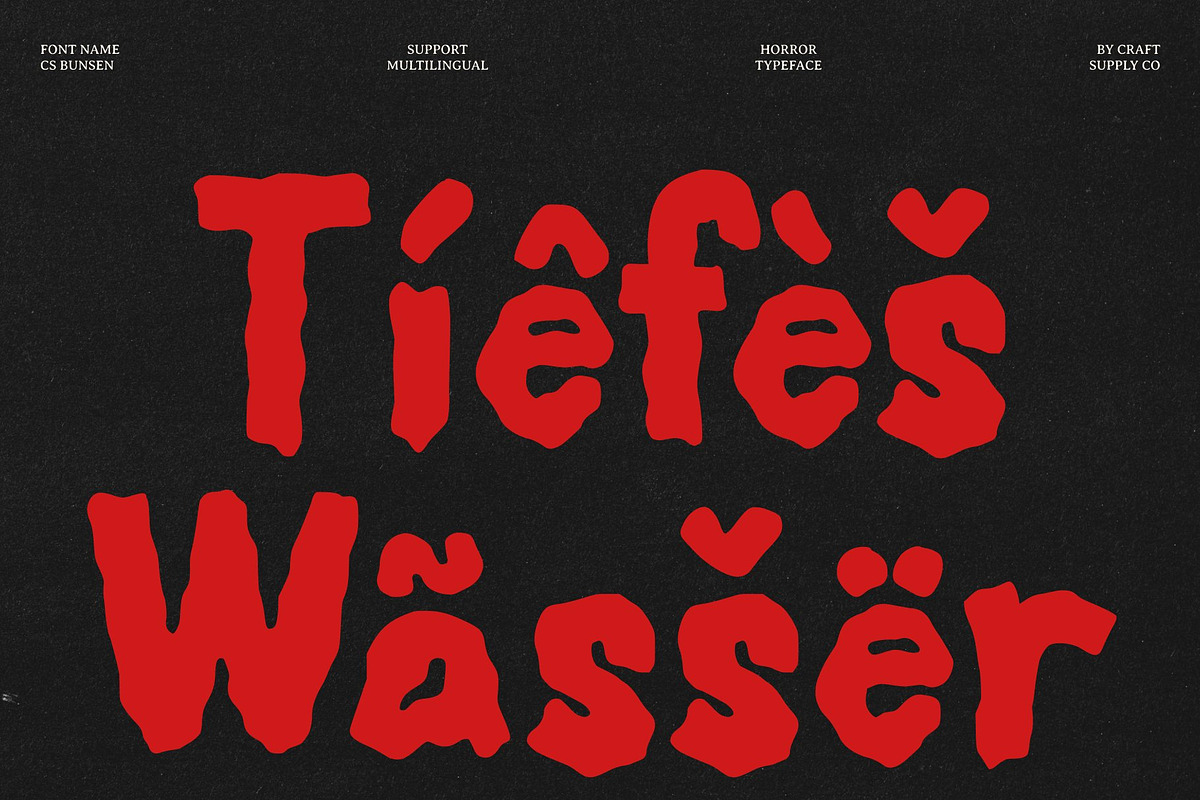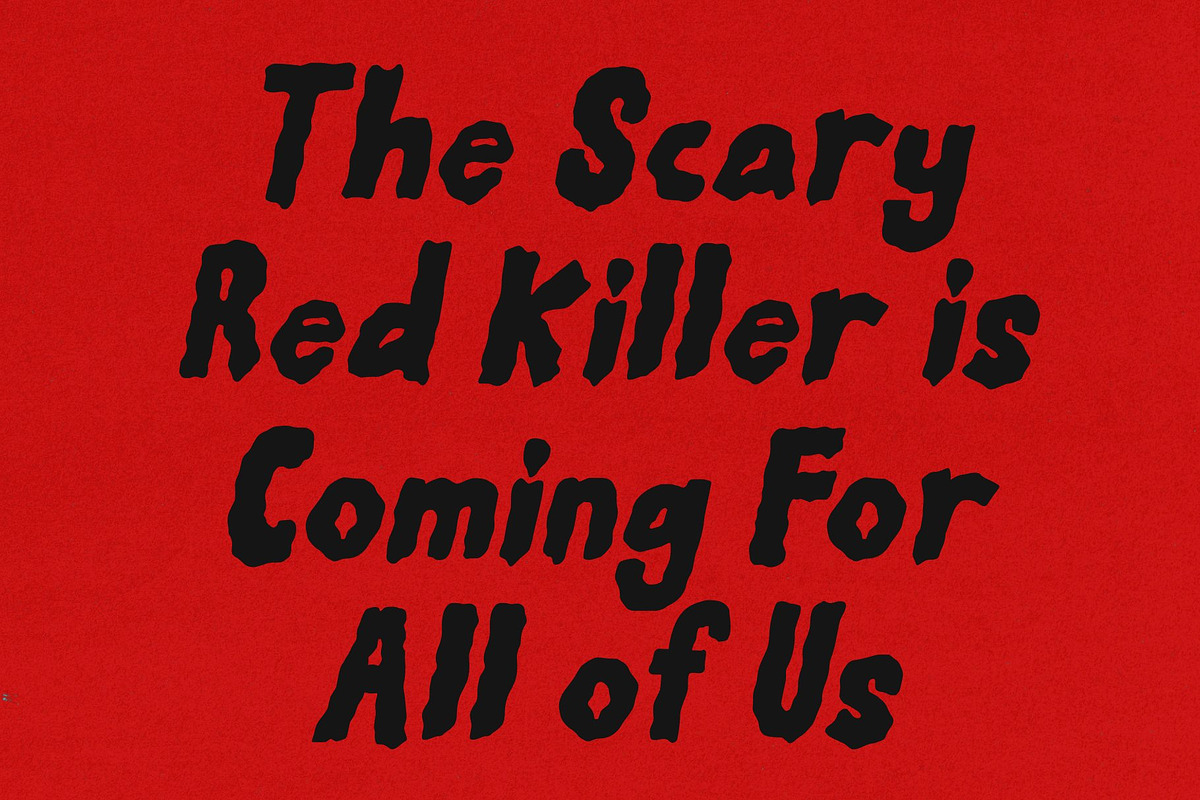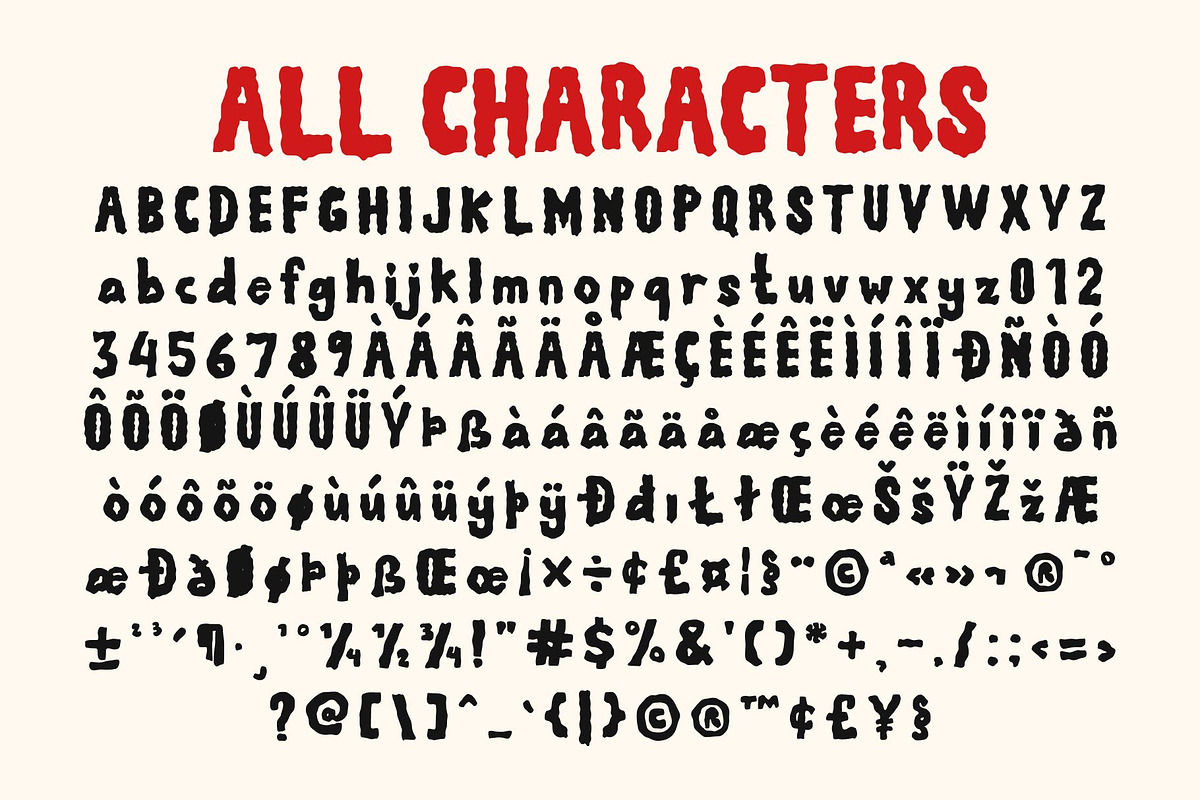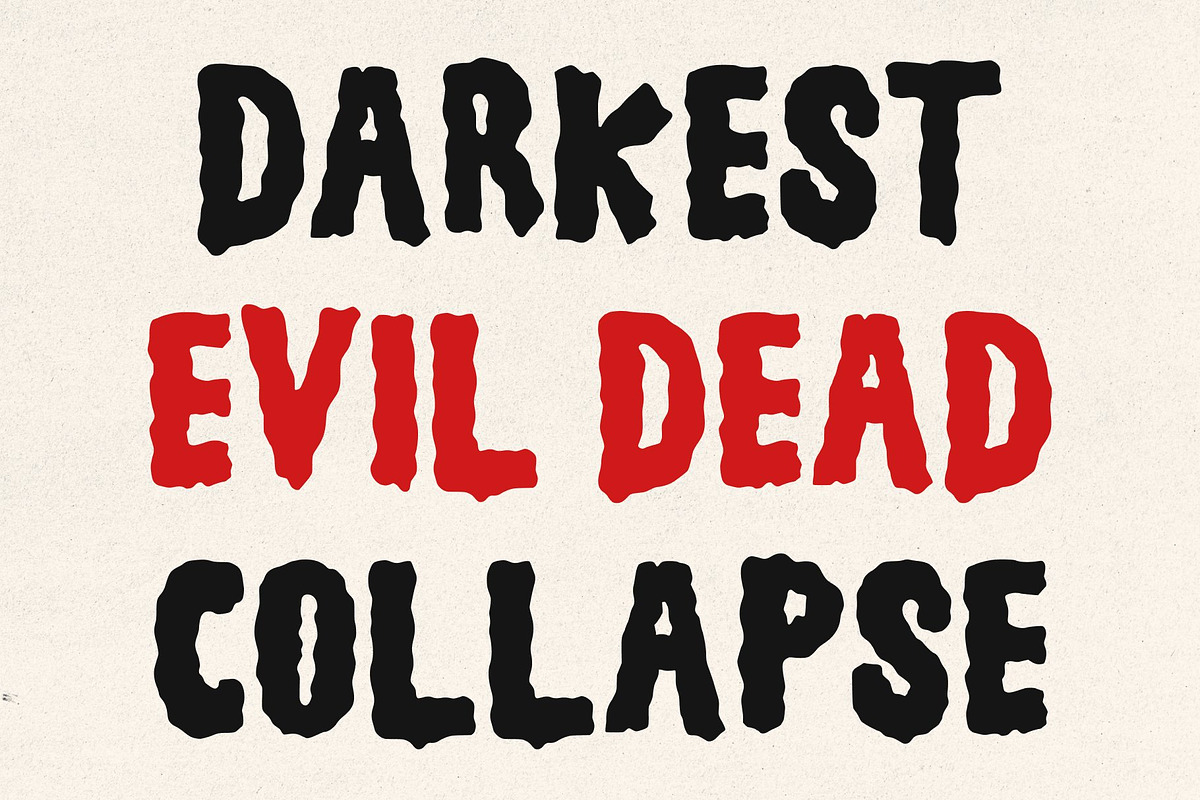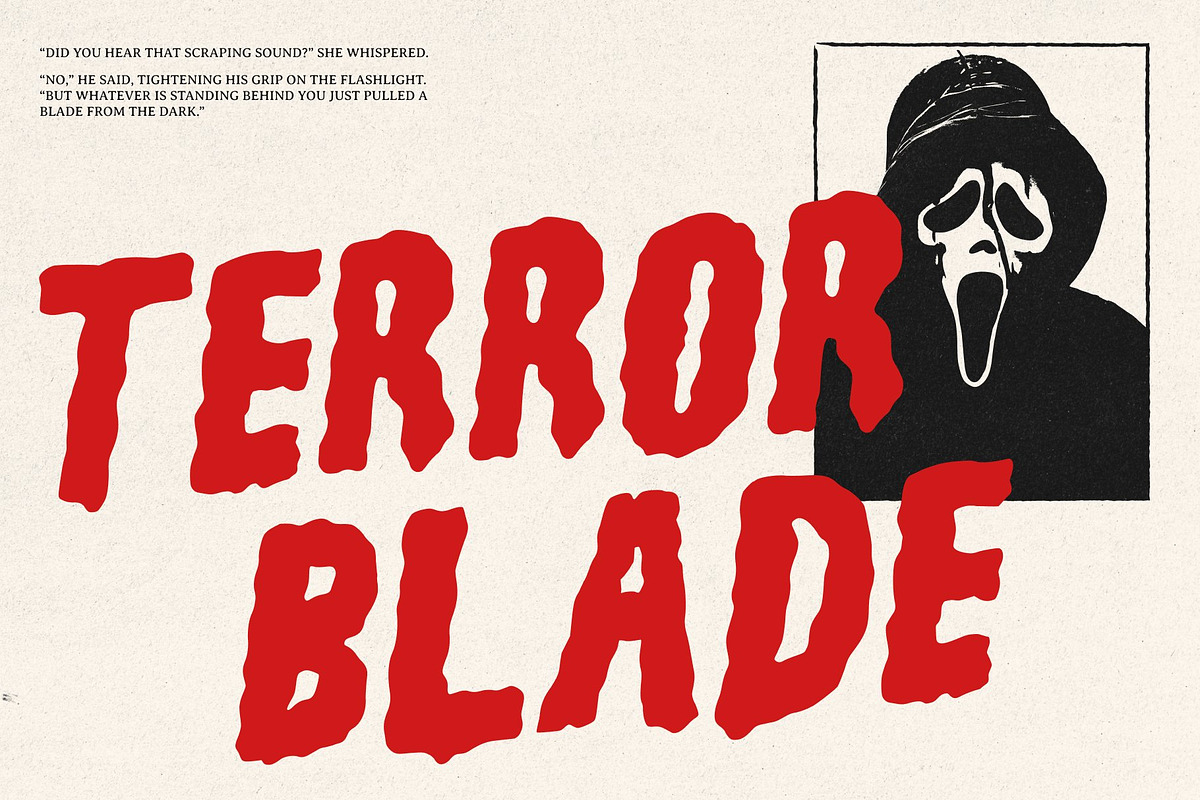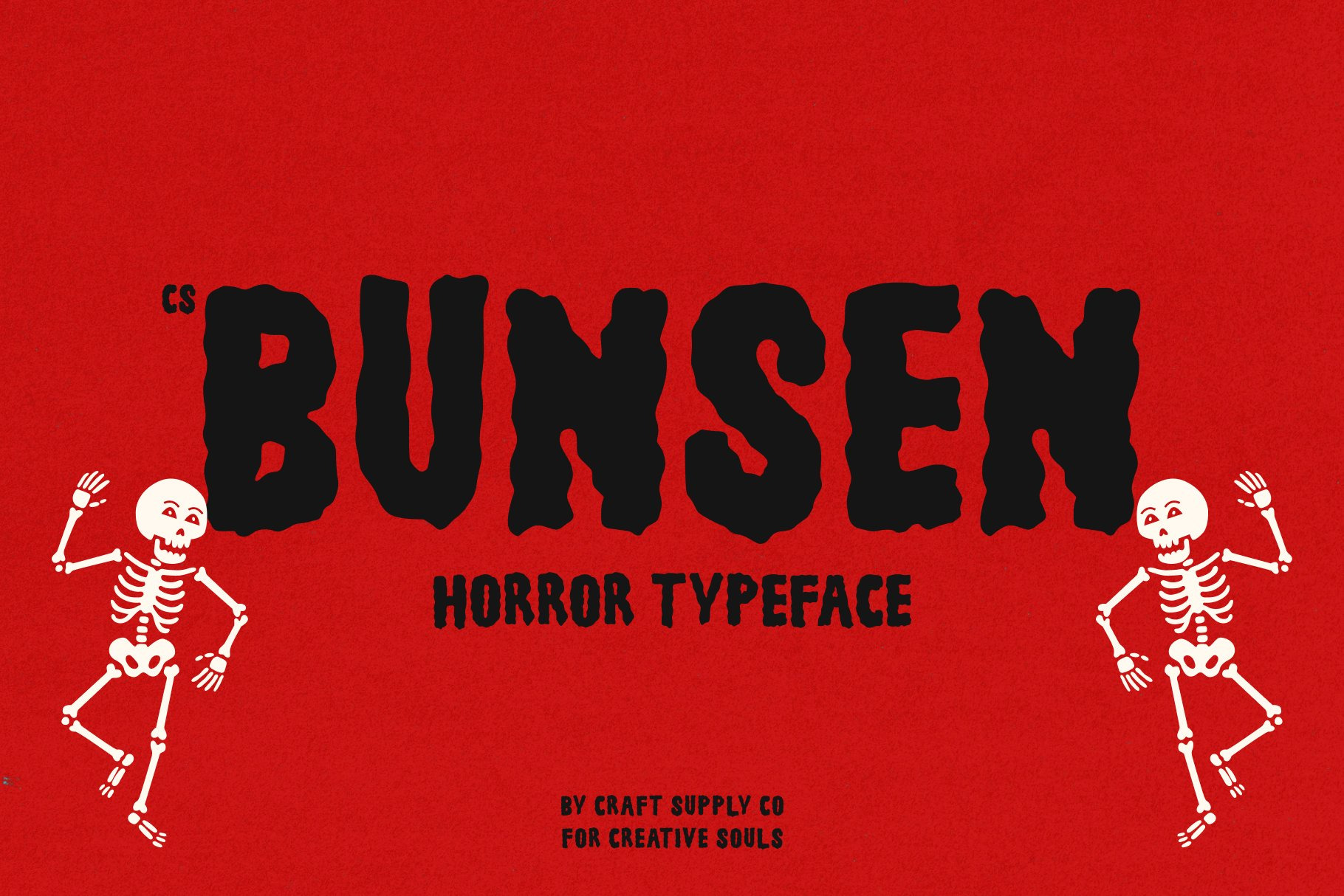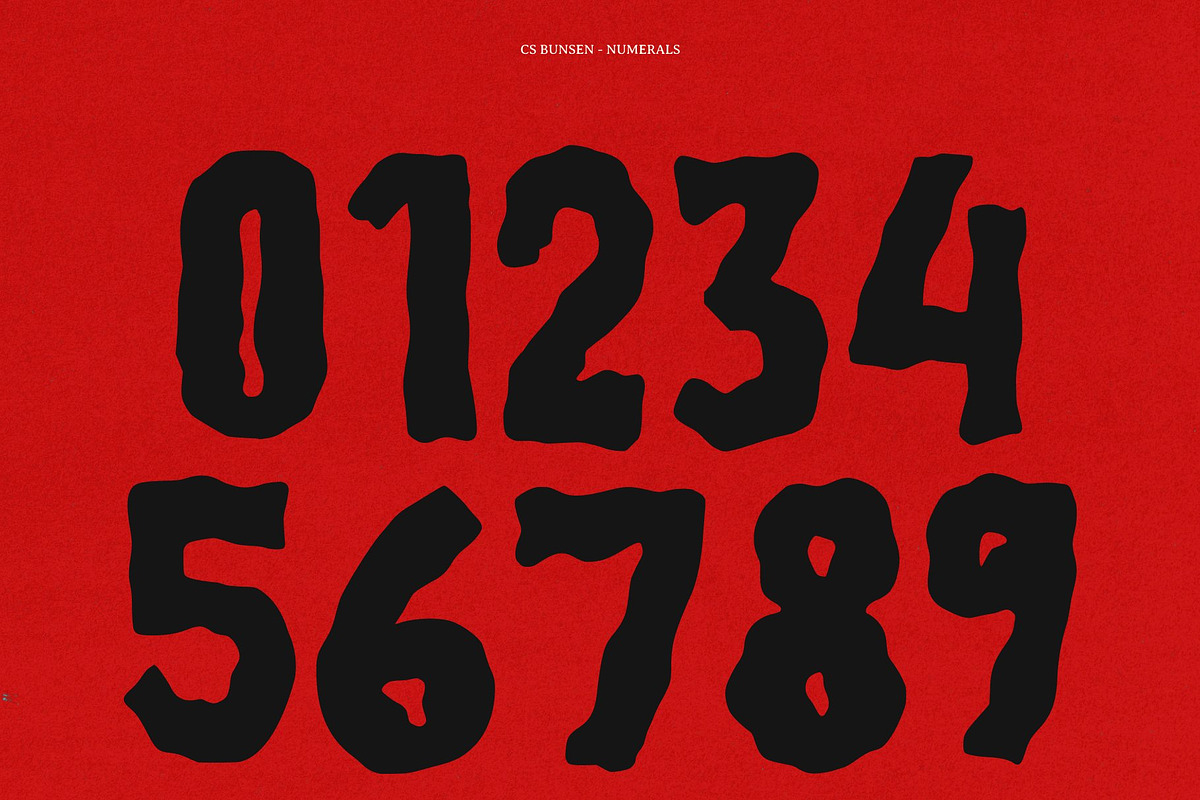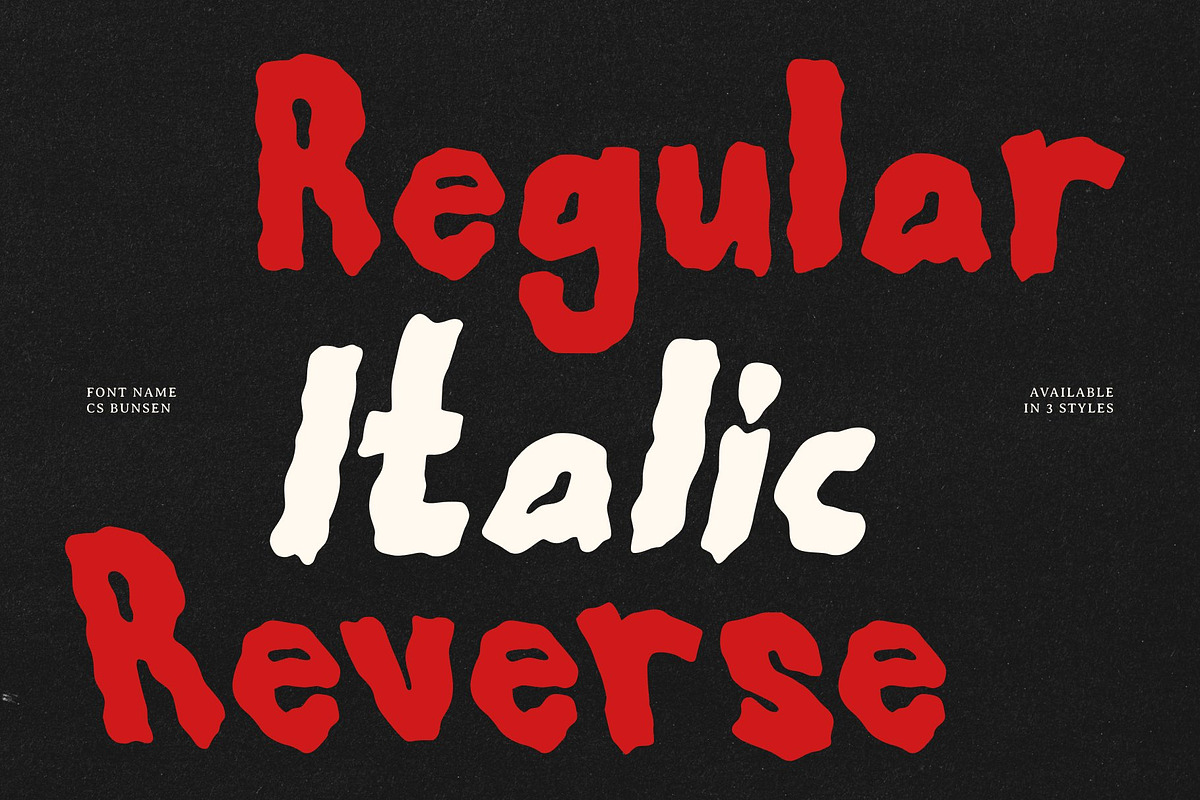
CS Bunsen – Vintage Horror Font
Step into the spooky season with CS Bunsen, a vintage horror display font crafted to capture the delightfully eerie aesthetic of classic monster movie posters and Halloween carnival signage. Featuring a distinctive hand-drawn lettering style, this typeface brings unmistakable personality to your creative projects through bold, chunky strokes and delightfully imperfect, sketchy edges. Every character is infused with raw nostalgic charm, recalling the tactile feel of traditional print-on-press production.
Designed specifically to make an impact, CS Bunsen balances a spooky atmosphere with an inviting, playful edge that keeps designs accessible and fun. The unique letterforms showcase drippy outlines and delightfully wobbly baselines that refuse to sit rigidly in place, ensuring your text immediately grabs attention and tells a story before a single word is even read.
This typeface is expertly tailored for high-impact headlines, cinematic titles, and standout decorative lettering where vibrant personality matters far more than pristine readability. Whether you are crafting haunting party invitations, event posters, seasonal merchandise, or digital graphics that demand a retro fright, this font delivers instant character and memorable visual weight to every layout.
Bring your next creative vision to life with a tool that celebrates the art of handmade imperfection. CS Bunsen equips designers, illustrators, and creators with a ready-made source of vintage chills and nostalgic thrills, transforming ordinary typography into the undisputed star of any seasonal showcase.
CS Bunsen Regular
CS Bunsen Italic
CS Bunsen Reverse Italic